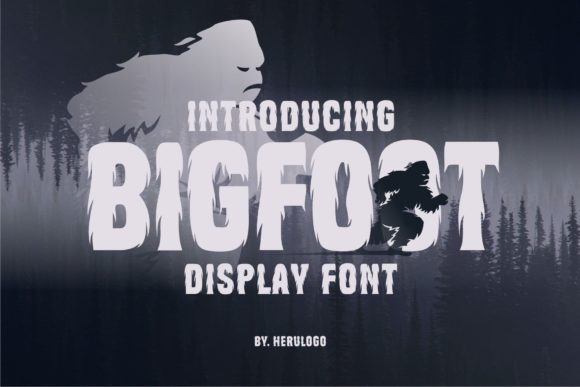
Introducing Bigfoot Font, the ultimate game-changer in the world of fonts! This captivating and versatile display font, created by the renowned Herulogo, is here to revolutionize your collection and take your designs to soaring heights.
With its cool and brushed style, Bigfoot Font is the perfect companion for any project, be it for personal or professional use. Its unique design ensures that your creations stand out from the crowd, leaving a lasting impression on anyone who lays eyes on them.
Searching for the best font for printing books? Look no further! Bigfoot Font is the answer to all your typography needs. Let its creative prowess transform your book covers, titles, and chapter headings into captivating works of art. The seamless blend of elegance and boldness will captivate readers, ensuring an unforgettable reading experience.
But that's not all! Bigfoot Font's versatility knows no bounds. Whether you're designing posters, logos, social media graphics, or even website headers, this font will effortlessly add a touch of sophistication and allure. Its eye-catching appeal is guaranteed to draw attention and leave a lasting impact on your audience.
Embrace the power of Bigfoot Font and witness your designs come to life with a touch of magic. Its extensive range of characters and ligatures allows for endless creativity, enabling you to truly make your mark in the design world.
Don't settle for ordinary fonts that fade into the background. Stand out, make a statement, and leave a lasting impression with Bigfoot Font. Elevate your designs, captivate your audience, and unlock a world of endless possibilities.